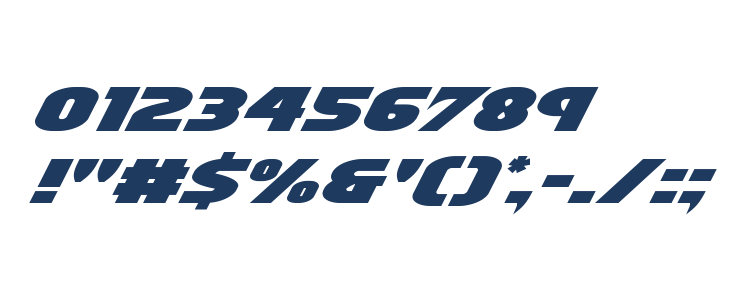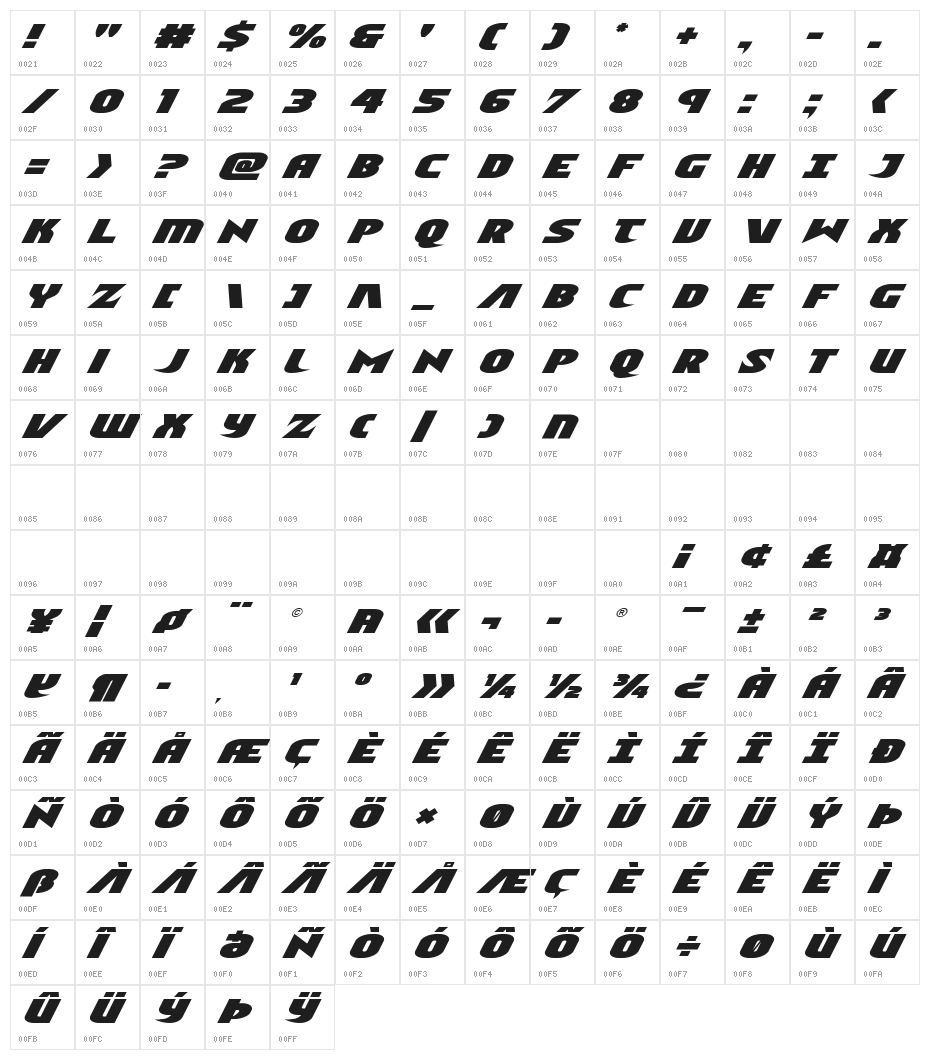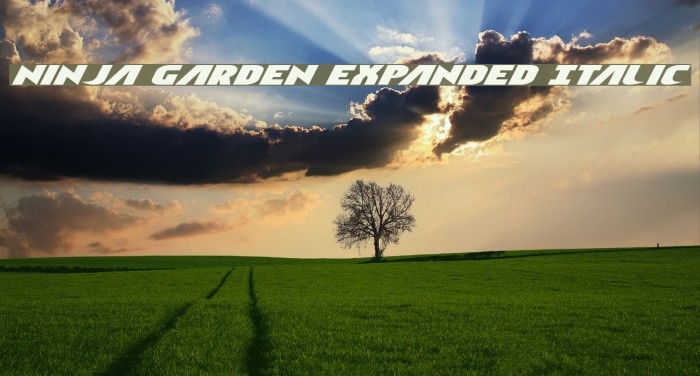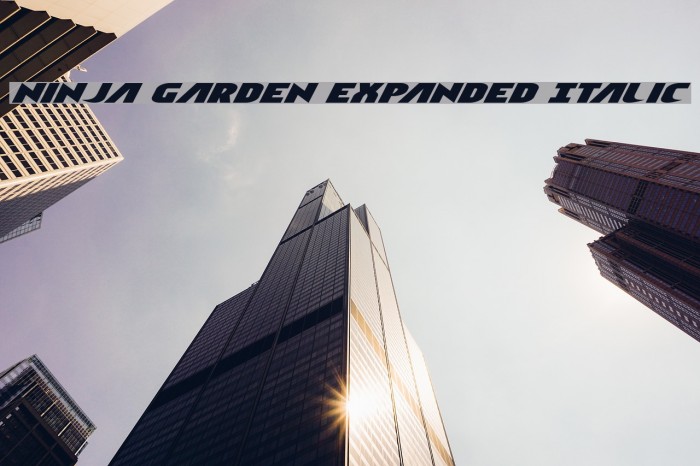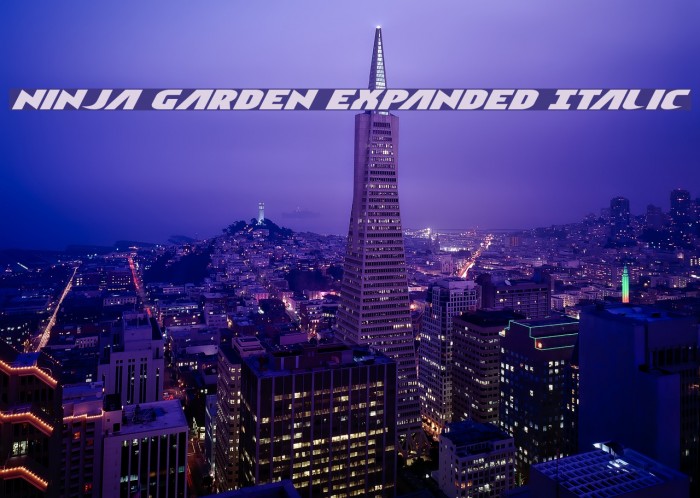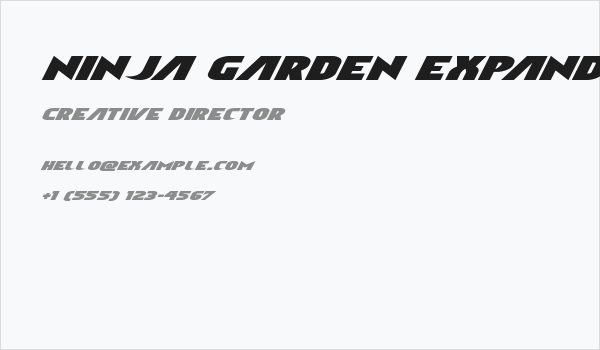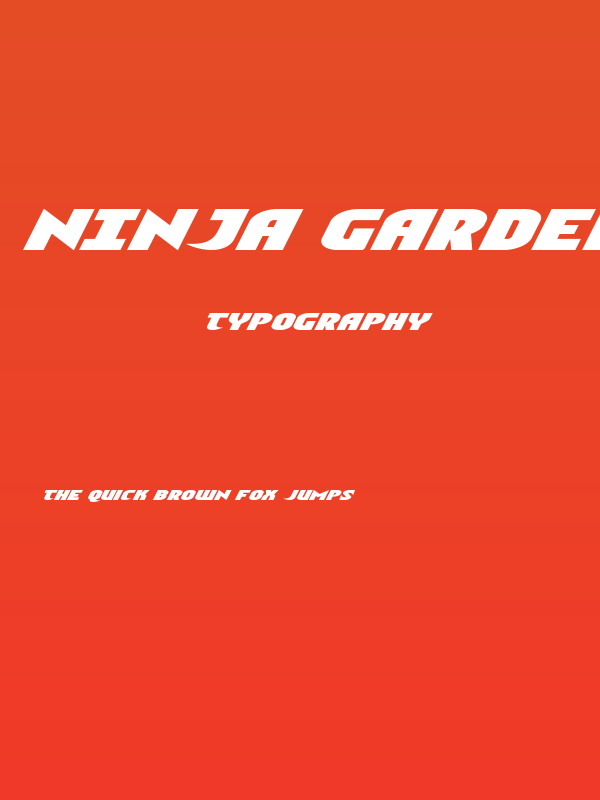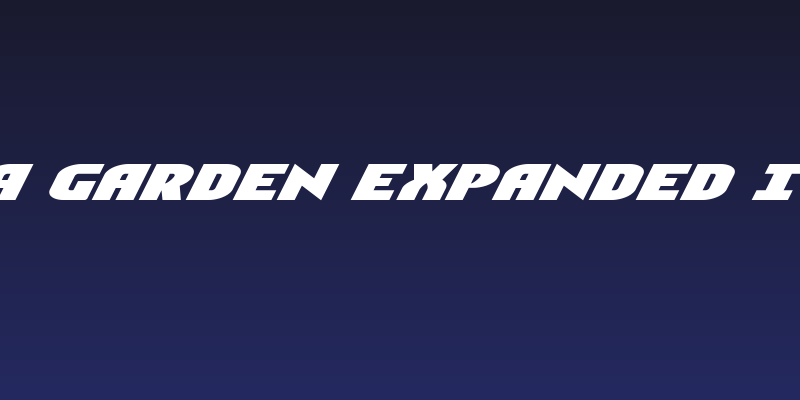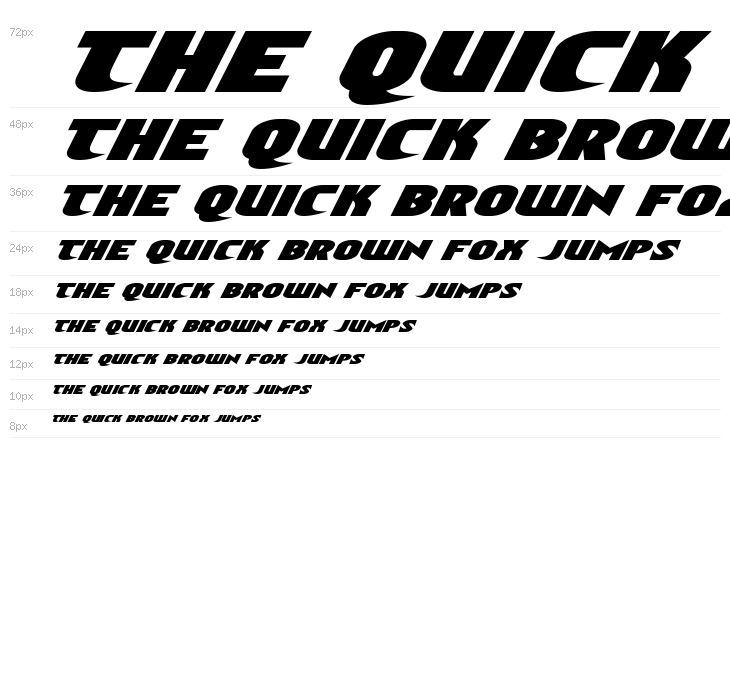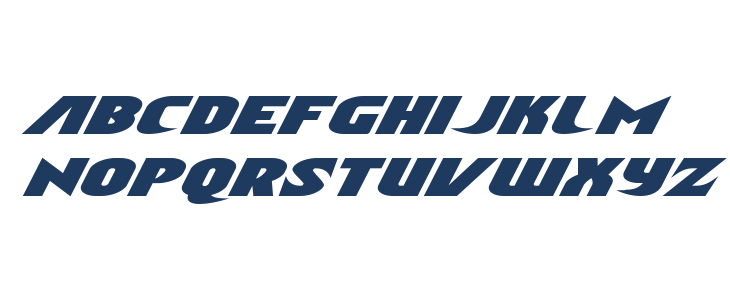
Ninja Garden Expanded Italic Font
Ninja Garden Expanded Italic Description
This font features a bold, italicized style with an expanded width, giving it a dynamic and energetic appearance. The characters are designed with sharp angles and a forward-leaning slant, creating a sense of motion and speed. The uppercase and lowercase letters maintain a consistent style, with the lowercase being slightly smaller but equally bold. The numbers and special characters follow the same design principles, ensuring uniformity across all glyphs. The font's strong presence makes it ideal for attention-grabbing headlines and impactful designs.
Proposed ProjectsIdeal for sports branding, action-themed posters, video game titles, and dynamic advertising campaigns.